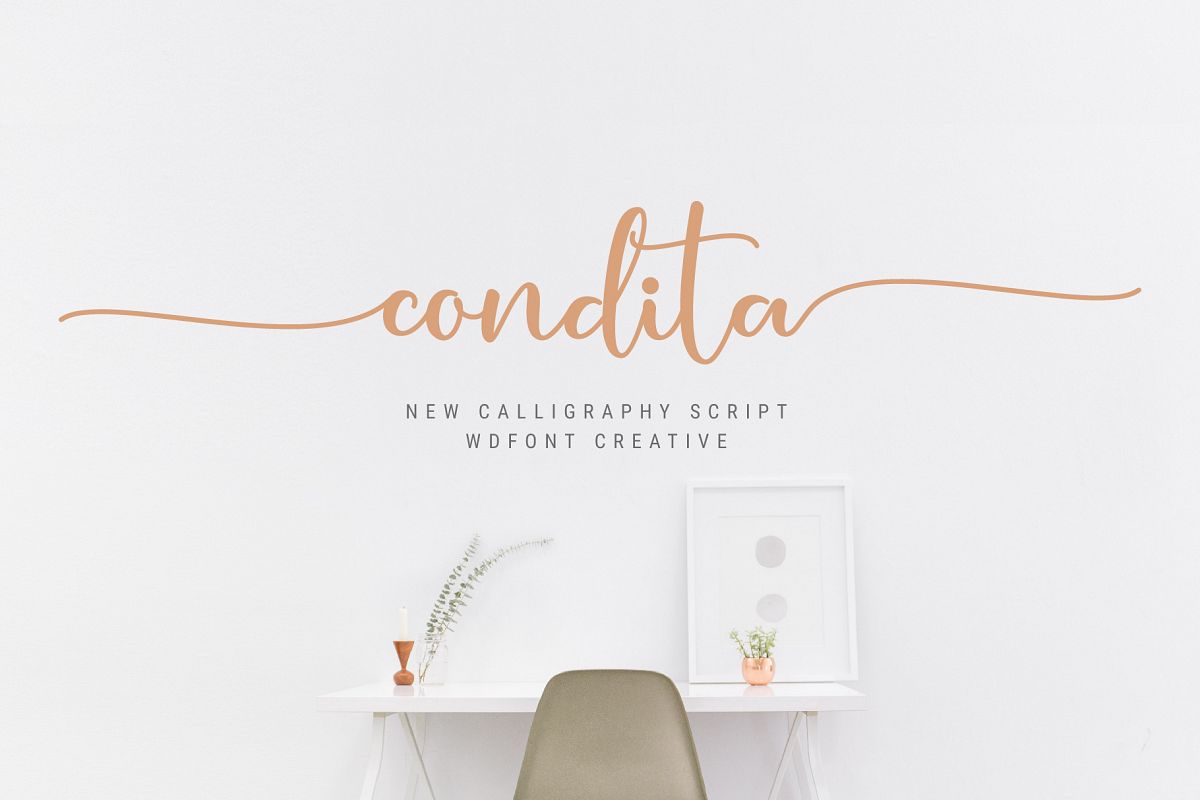
Condita Script Font
Condita
Condita a new fresh & modern script with a handmade calligraphy style, decorative characters and a dancing baseline! So beautiful on invitation like greeting cards, branding materials, business cards, quotes, posters, and more!!